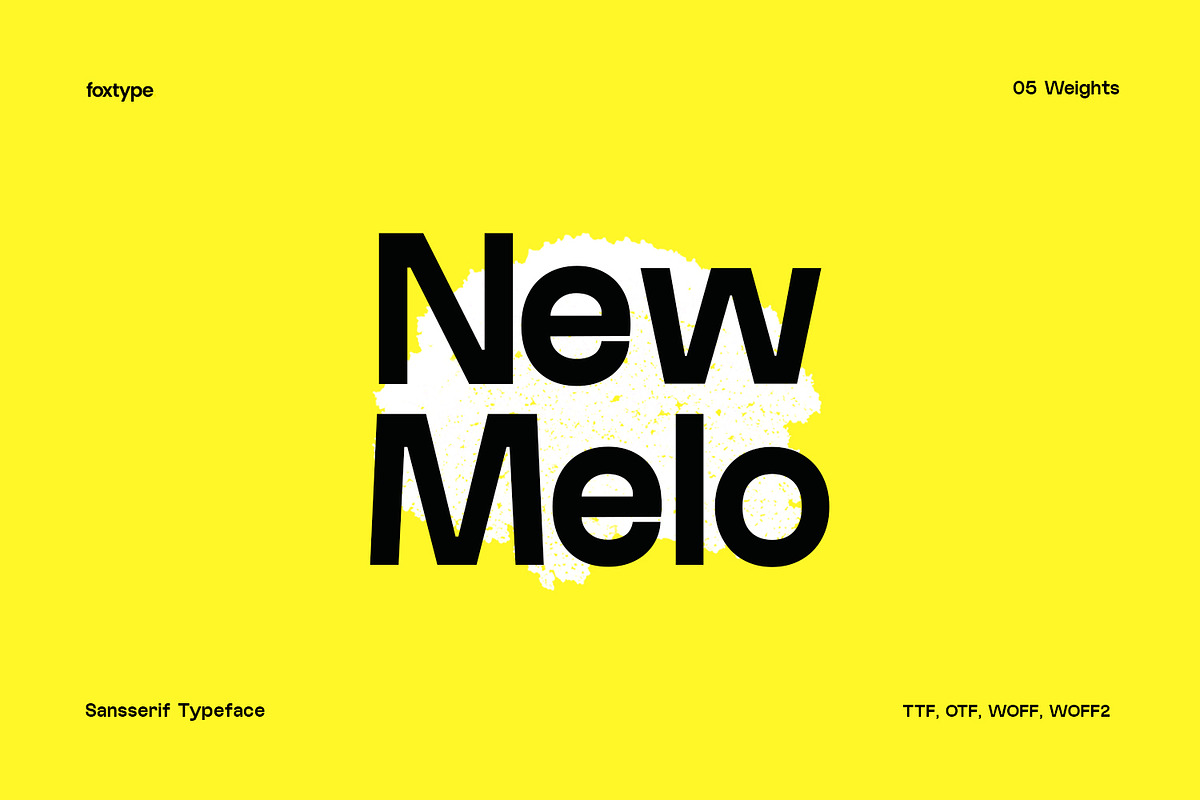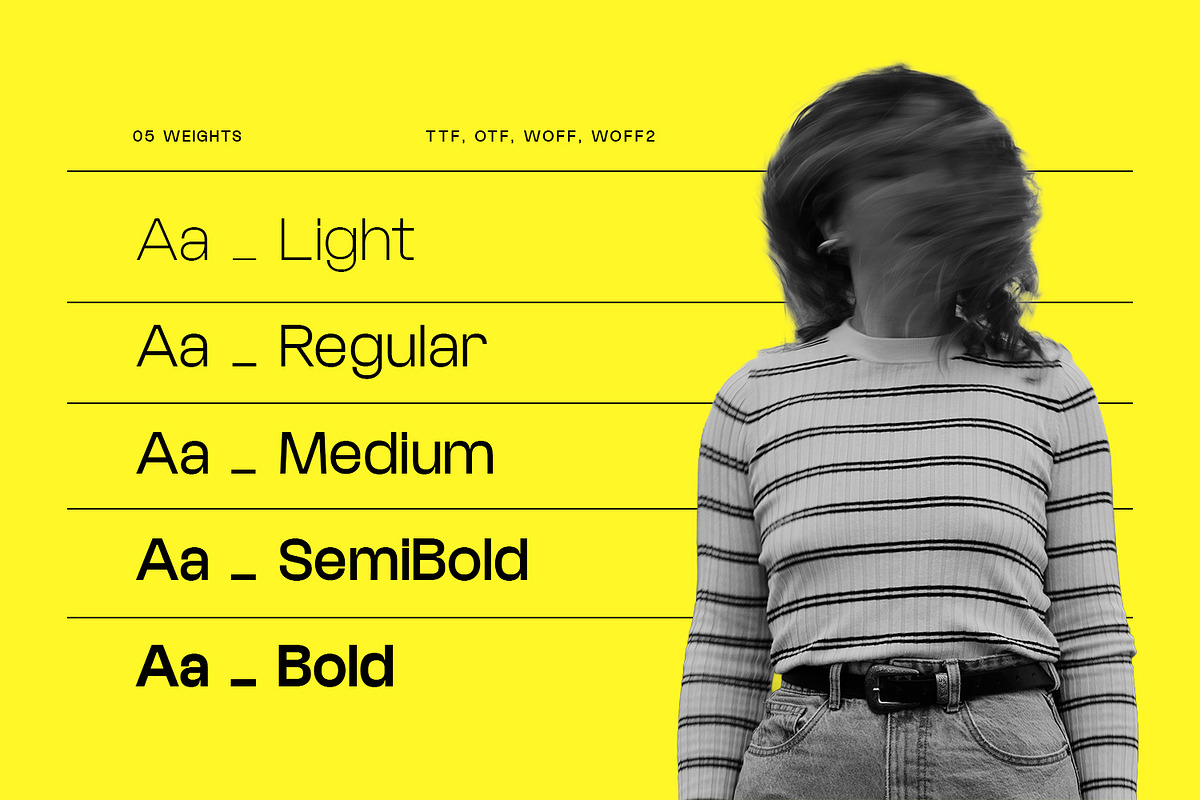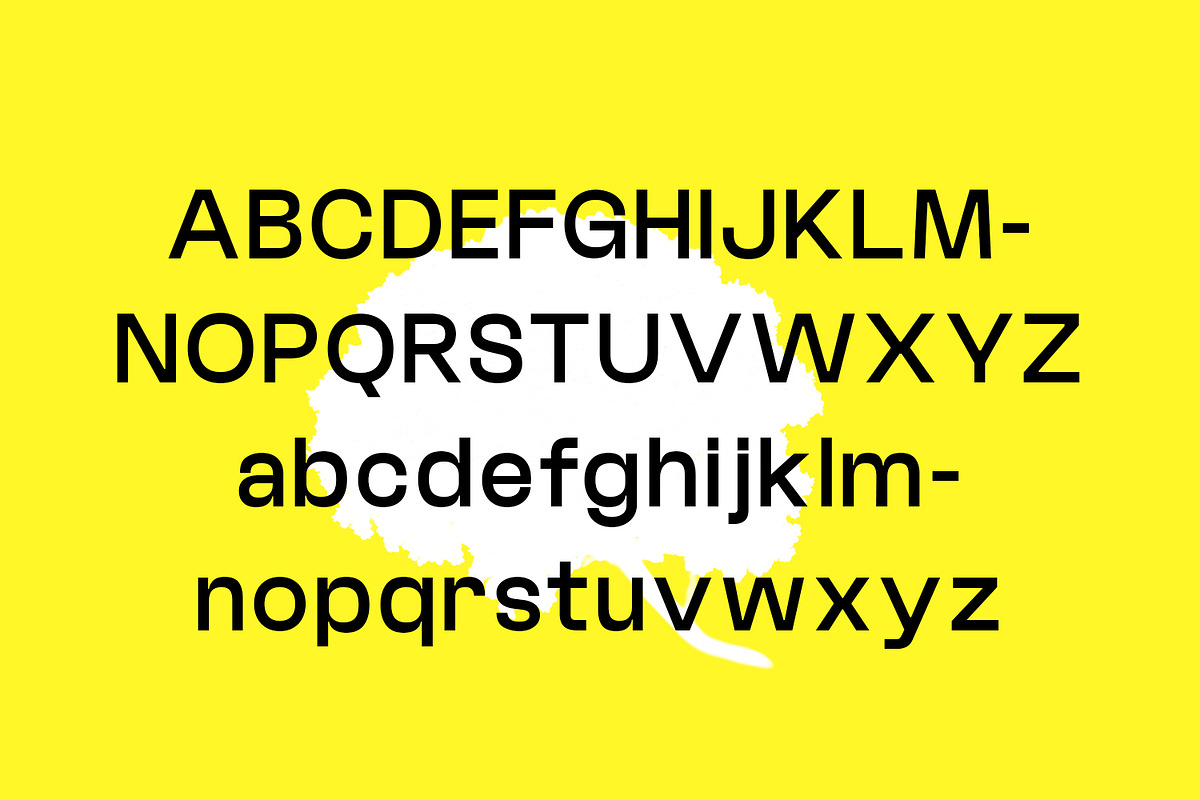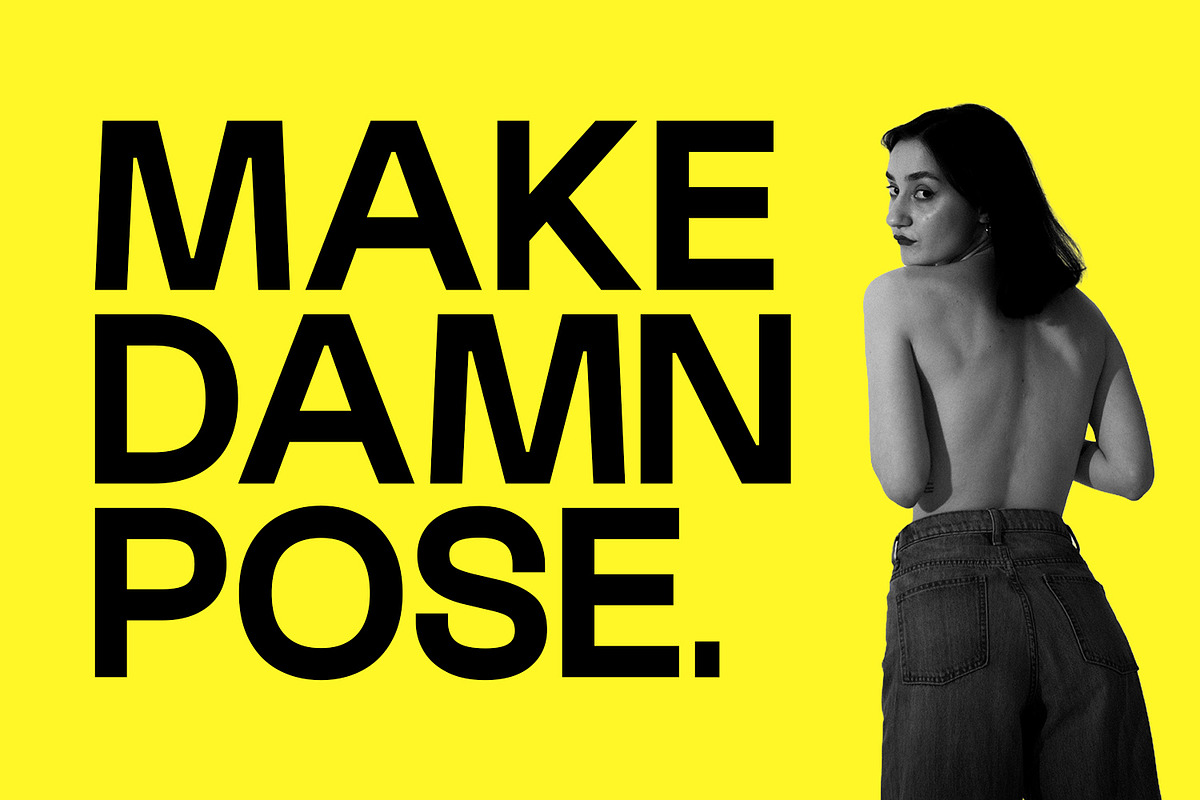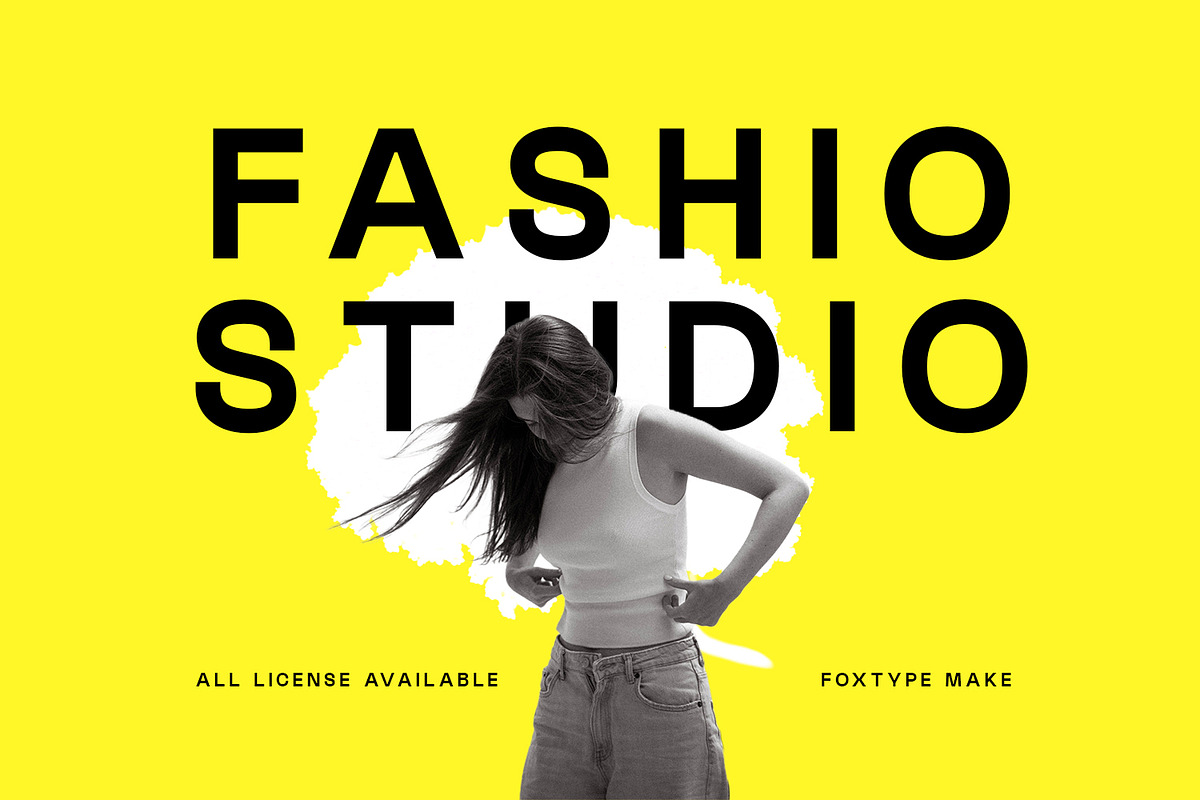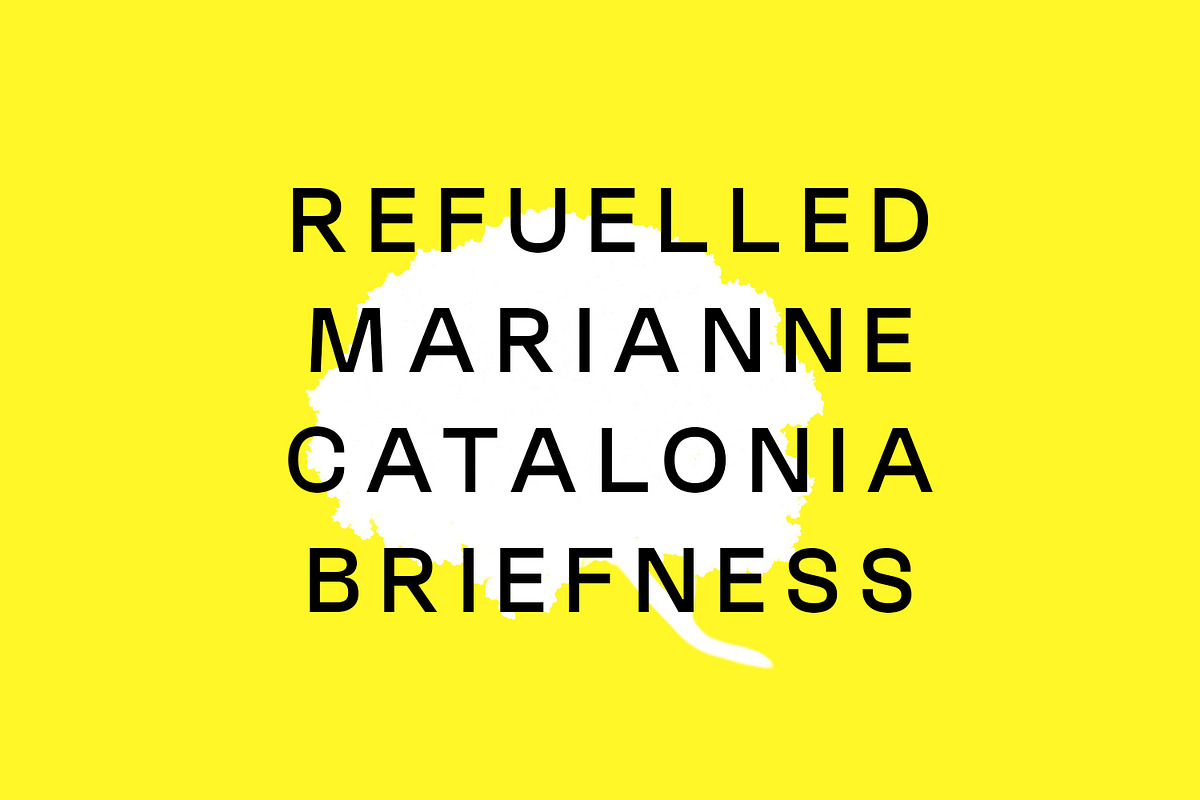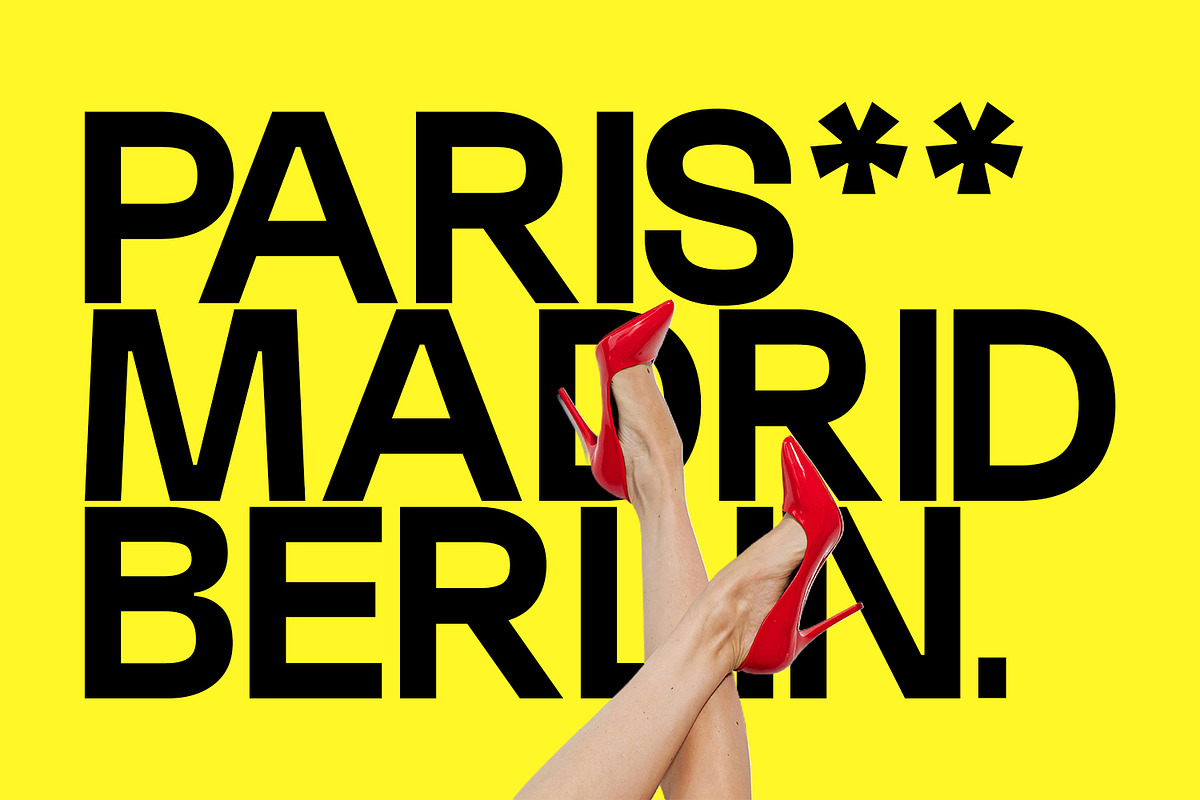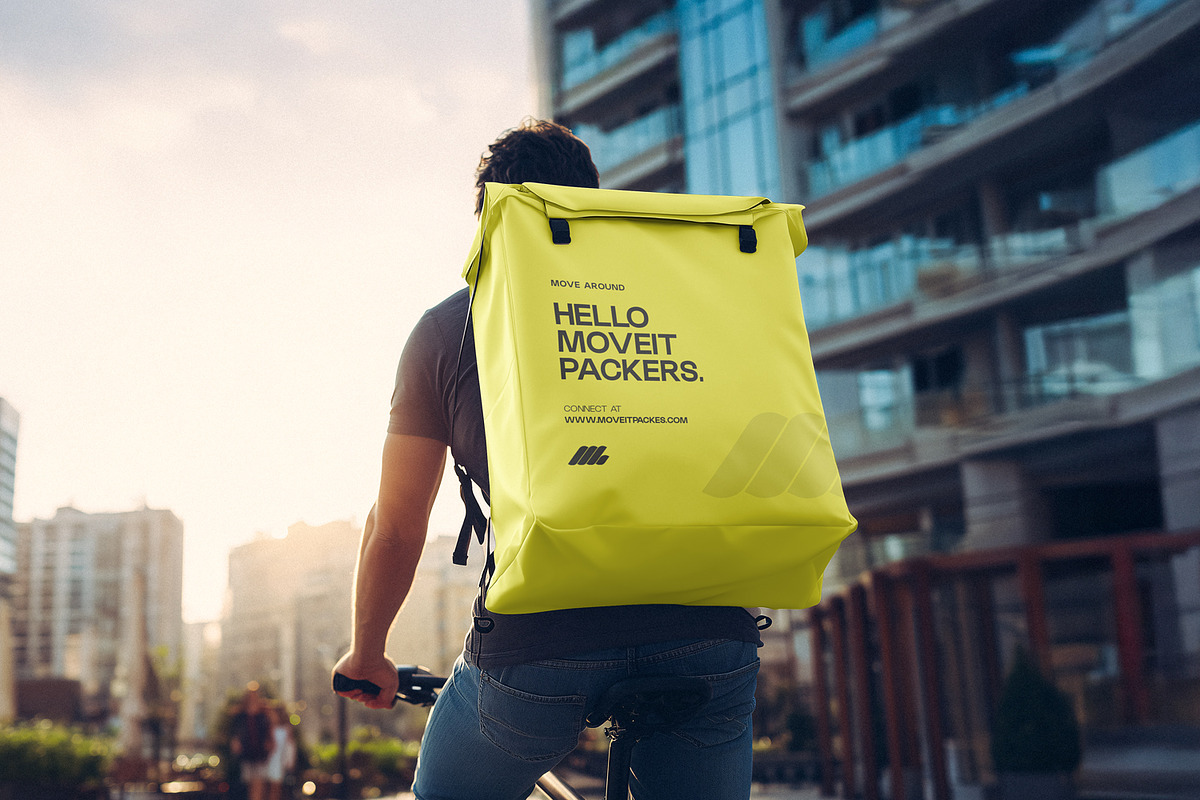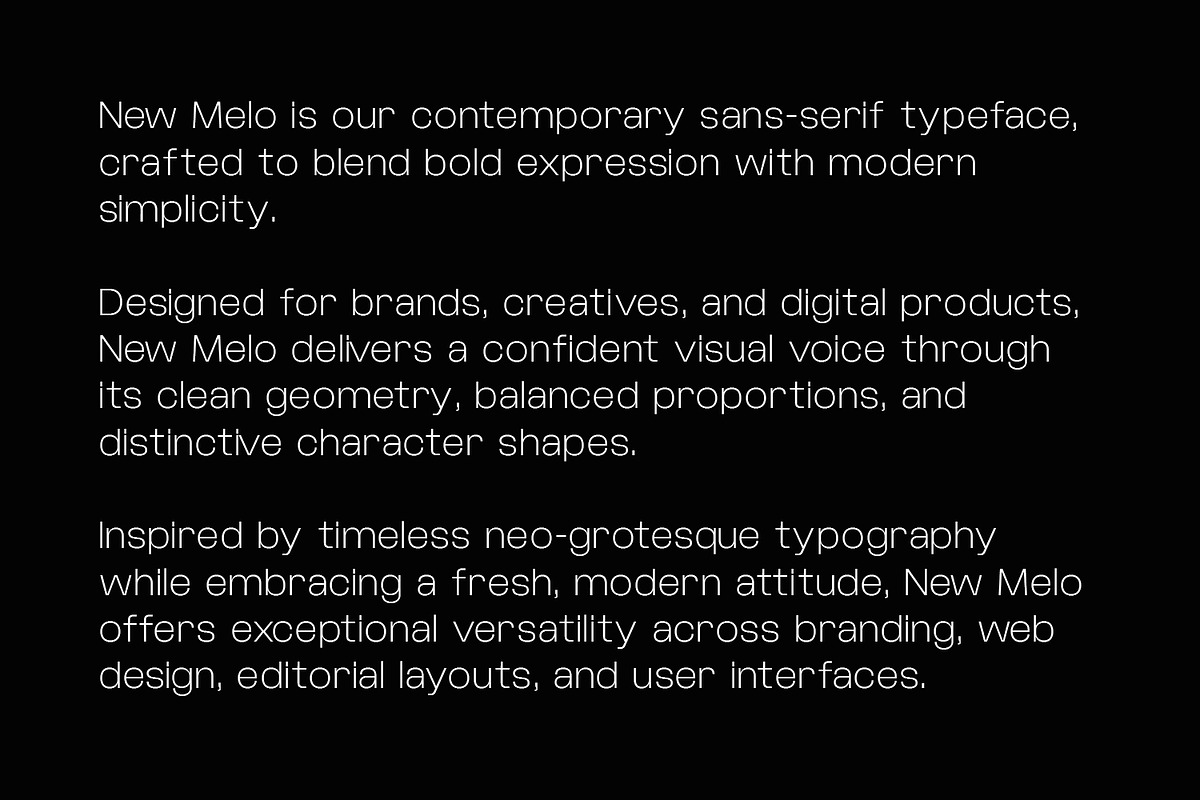
New Melo Typeface
New Melo – Modern Sans Serif Typeface
New Melo is a contemporary sans-serif typeface crafted for designers, brands, and creatives who demand clarity, versatility, and modern aesthetics. Featuring clean geometric forms, balanced proportions, and excellent readability, New Melo delivers a professional yet approachable look across both digital and print applications.
Inspired by popular modern typefaces such as Poppins and Cottorway, New Melo combines minimalist design principles with strong visual impact, making it suitable for everything from bold headlines to comfortable body text.
With 5 carefully crafted weights—Light, Regular, Medium, SemiBold, and Bold—New Melo provides the flexibility needed for complete branding systems, editorial layouts, websites, mobile applications, marketing materials, and business communications.
Whether you're designing a startup brand, creating social media graphics, building a website, or developing professional business documents, New Melo adapts seamlessly to your creative workflow.
Font Weights
* Light
* Regular
* Medium
* SemiBold
* Bold
* Branding & Logo Design
* Corporate Identity
* Business Documents
* Website Design
* UI/UX Projects
* Mobile Applications
* Social Media Graphics
* Advertising Materials
* Posters & Flyers
* Editorial Design
* Presentations
* Packaging Design
* Creative Assets
* Headlines & Display Text
* Body Text & Paragraphs
Modern Sans Serif Design
Clean & Professional Appearance
Excellent Readability
Optimized for Print & Digital Use
Multi-Weight Font Family
Professional Character Spacing
Suitable for Both Headings and Long-Form Text
New Melo is a versatile modern typeface designed to help brands communicate with confidence, creativity, and clarity across every medium.